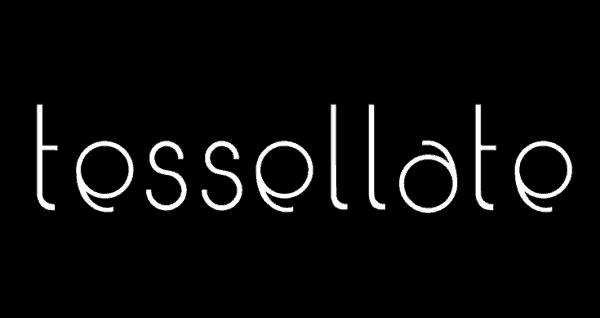
Tessellate free font
Tessellate is a simple yet vivid display sans serif typeface. Font inspired by organically formed channels that branch off of deltas. It is “characterized through a combination of a geometric circle and ‘rivers’ flowing off select characters”.